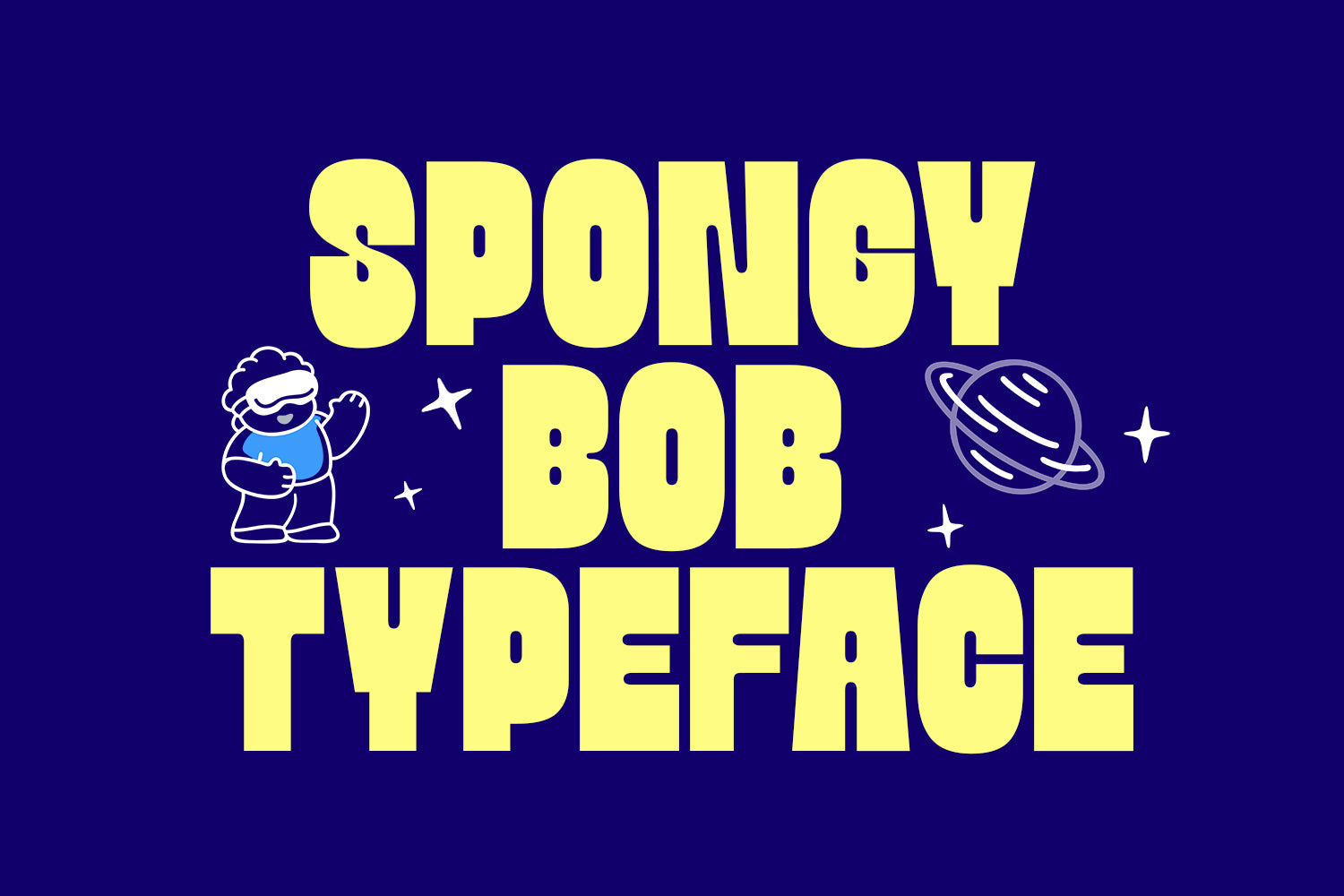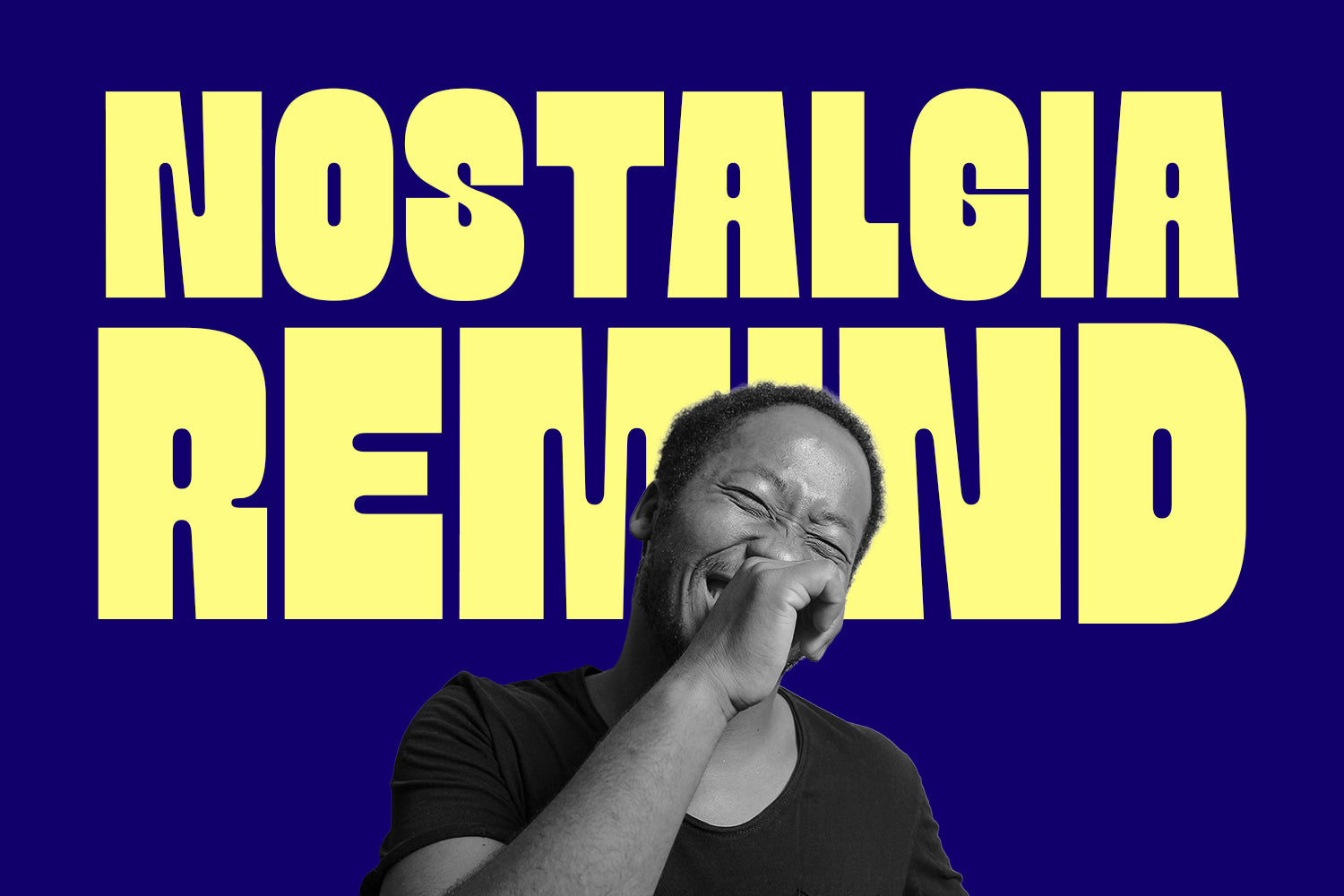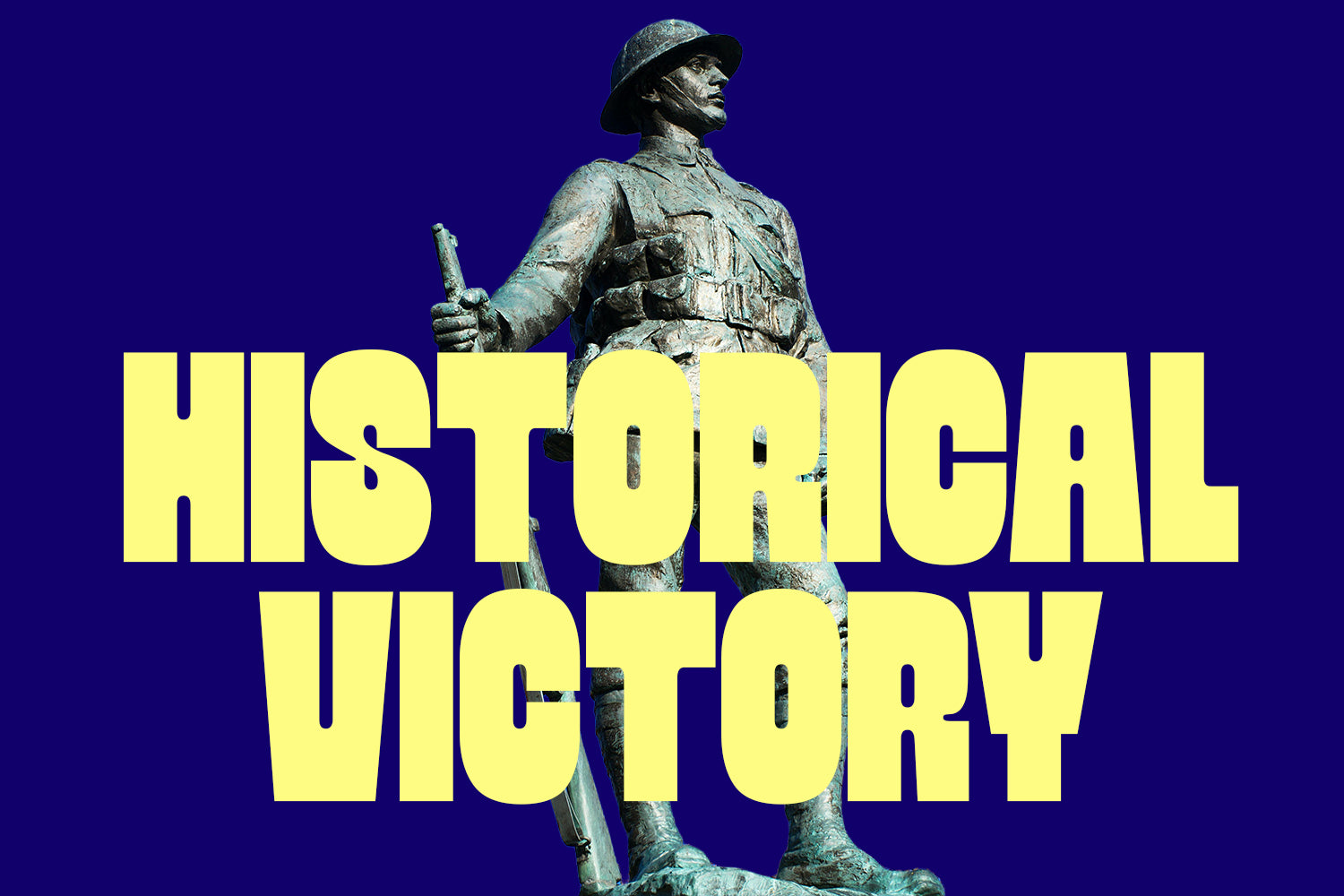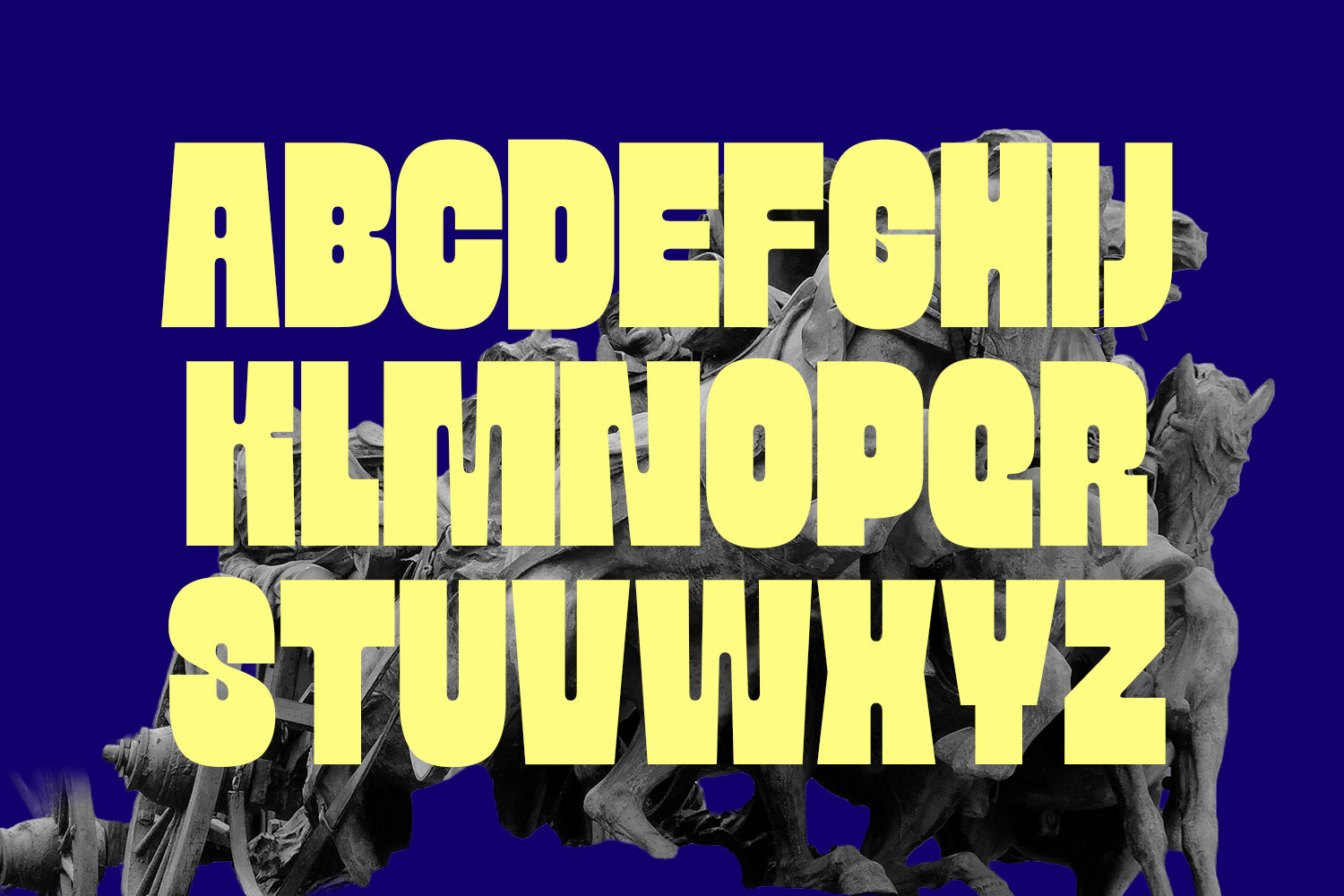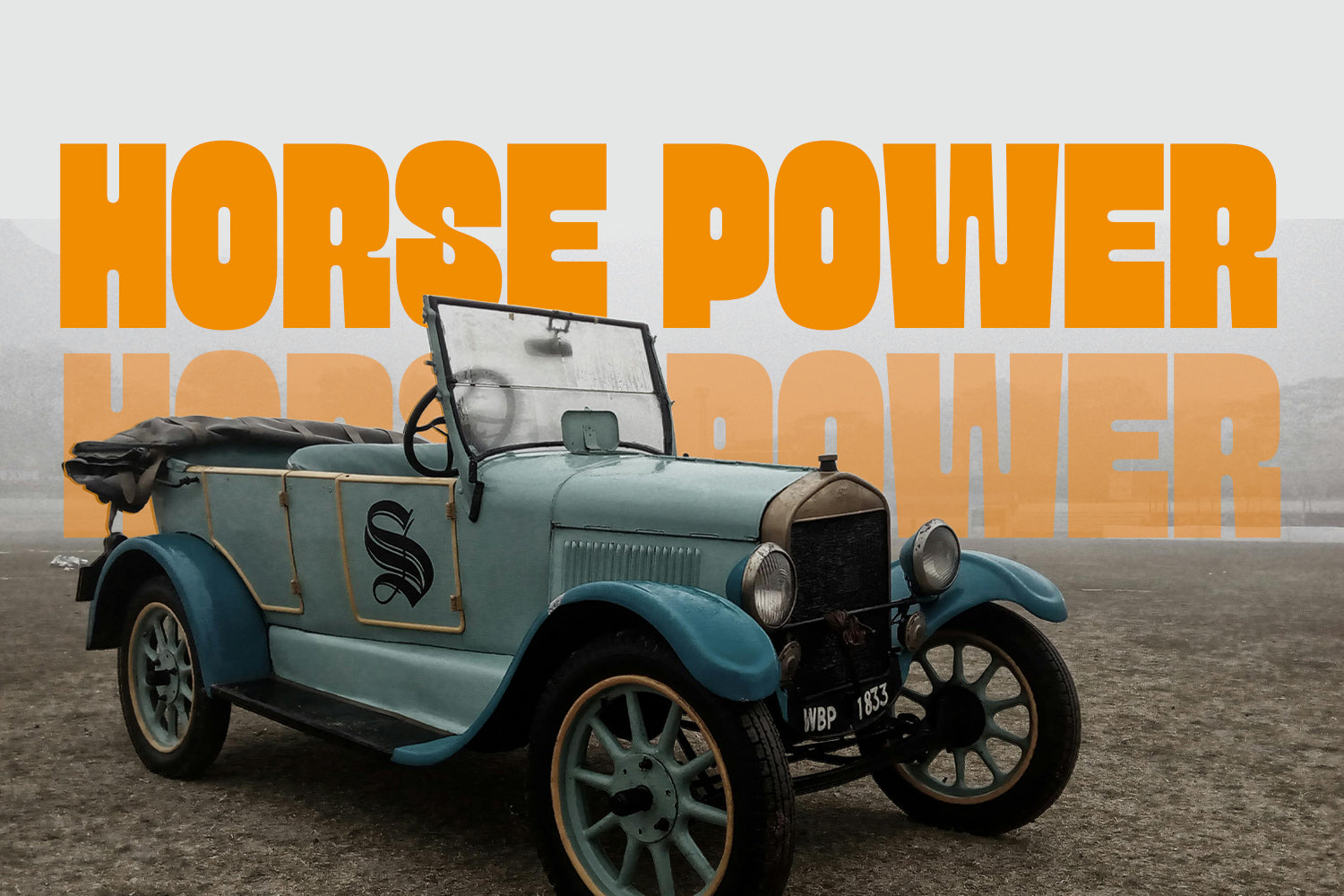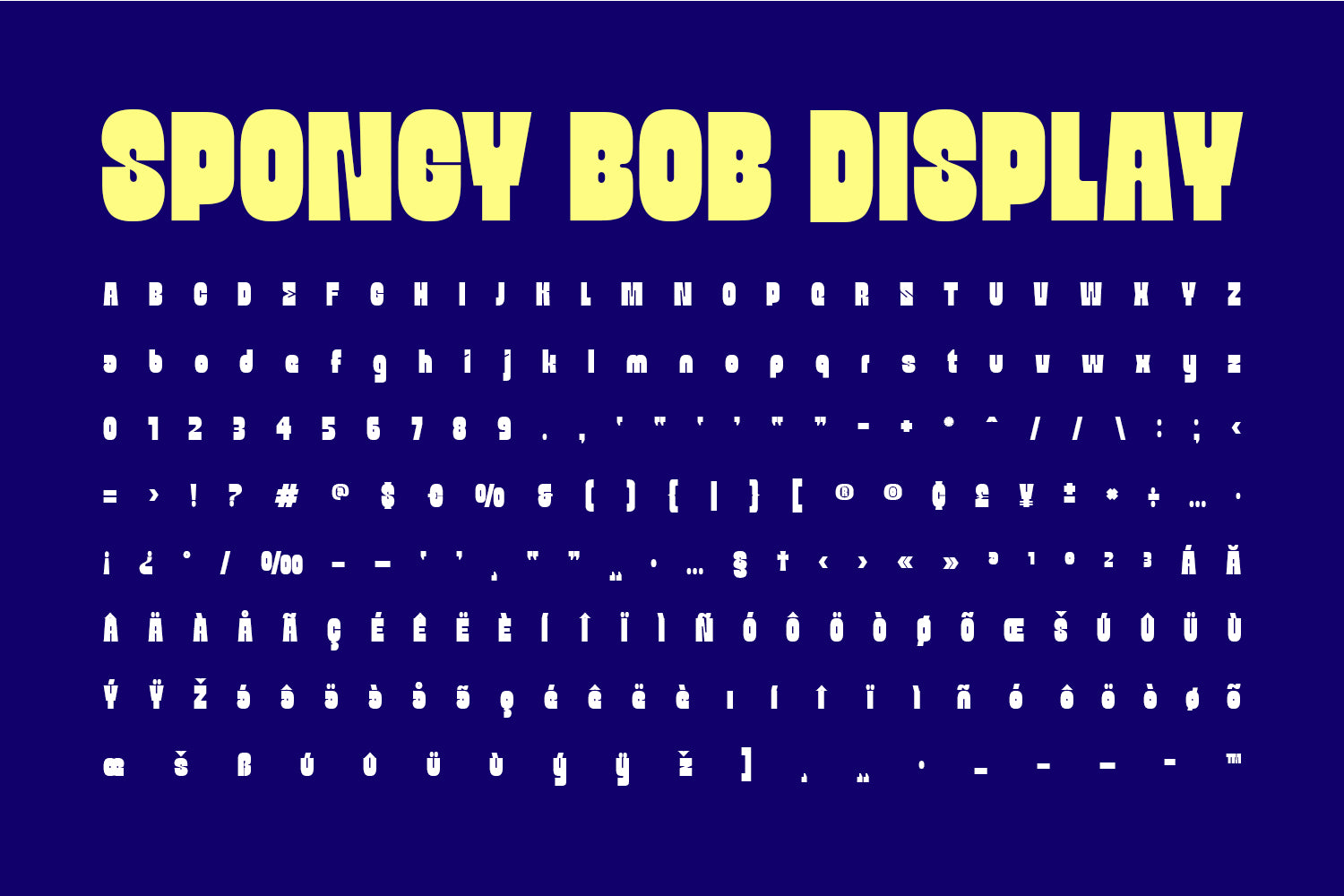
Spongy Bob Display
Bring fun, energy, and personality to your designs with Spongy Bob Typeface, a bold and playful display font inspired by cartoon-style lettering and bubbly shapes. With its thick strokes, soft curves, and eye-catching presence, this font is perfect for projects that need a cheerful and expressive vibe.
Spongy Bob is designed to stand out in headlines, posters, branding, and kids-related designs. Its chunky and friendly letterforms make it highly readable while maintaining a quirky, animated feel that grabs attention instantly.
Perfect for:
Kids’ designs & educational materials Cartoon & comic-style graphics Posters, flyers & banners Branding & logo design Social media graphics YouTube thumbnails & gaming content Merchandise (t-shirts, mugs, stickers, etc.)
Font Features:
Bold, rounded, and playful letterforms Highly legible display style Fun and energetic personality Uppercase & lowercase characters Numbers & punctuation included Multilingual support (basic Latin)
Spongy Bob Typeface is the perfect choice when you want to add a splash of fun and creativity to your designs. Whether you're creating for kids or just want a lighthearted, bold look, this font delivers a unique and memorable style.